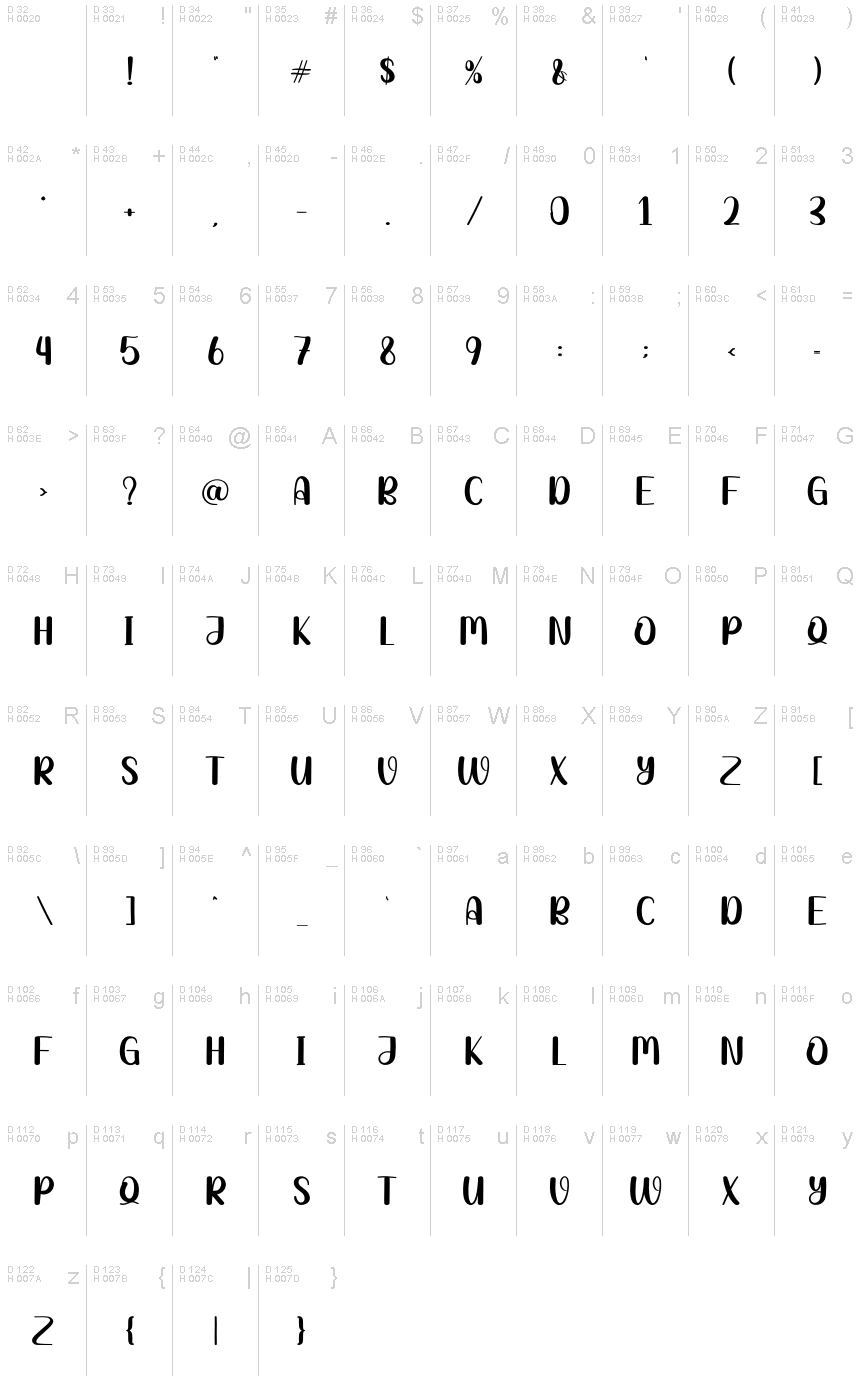
Holly Wood
"Holly Wood" is a captivating font that exudes a smooth, brush-like elegance. Crafted by designer Andi Moz, this typeface combines the fluidity of handwritten strokes with a refined, modern aesthetic.
The sweeping curves and bold, confident lines lend an air of sophistication, making it well-suited for a variety of design applications, from high-end branding and editorial layouts to eye-catching display typography.
Its versatility shines through, allowing it to seamlessly transition between formal and informal settings, effortlessly elevating the visual impact of any project.